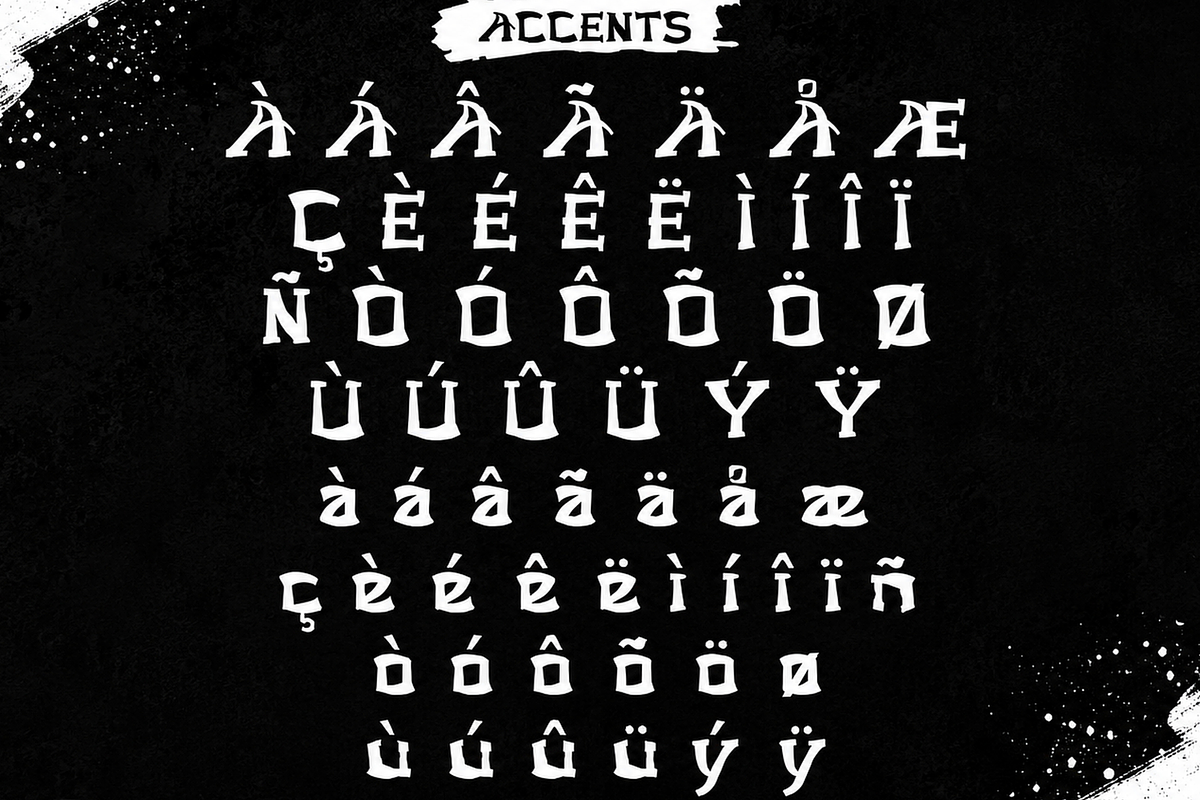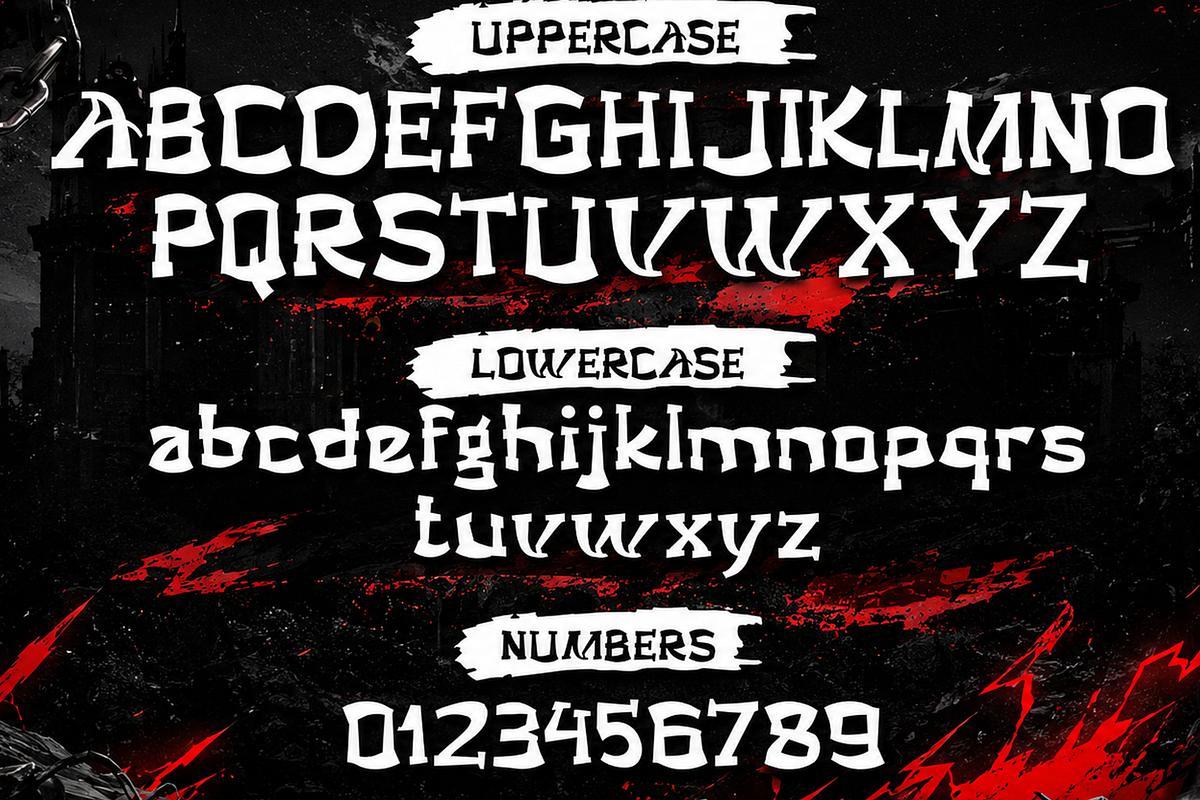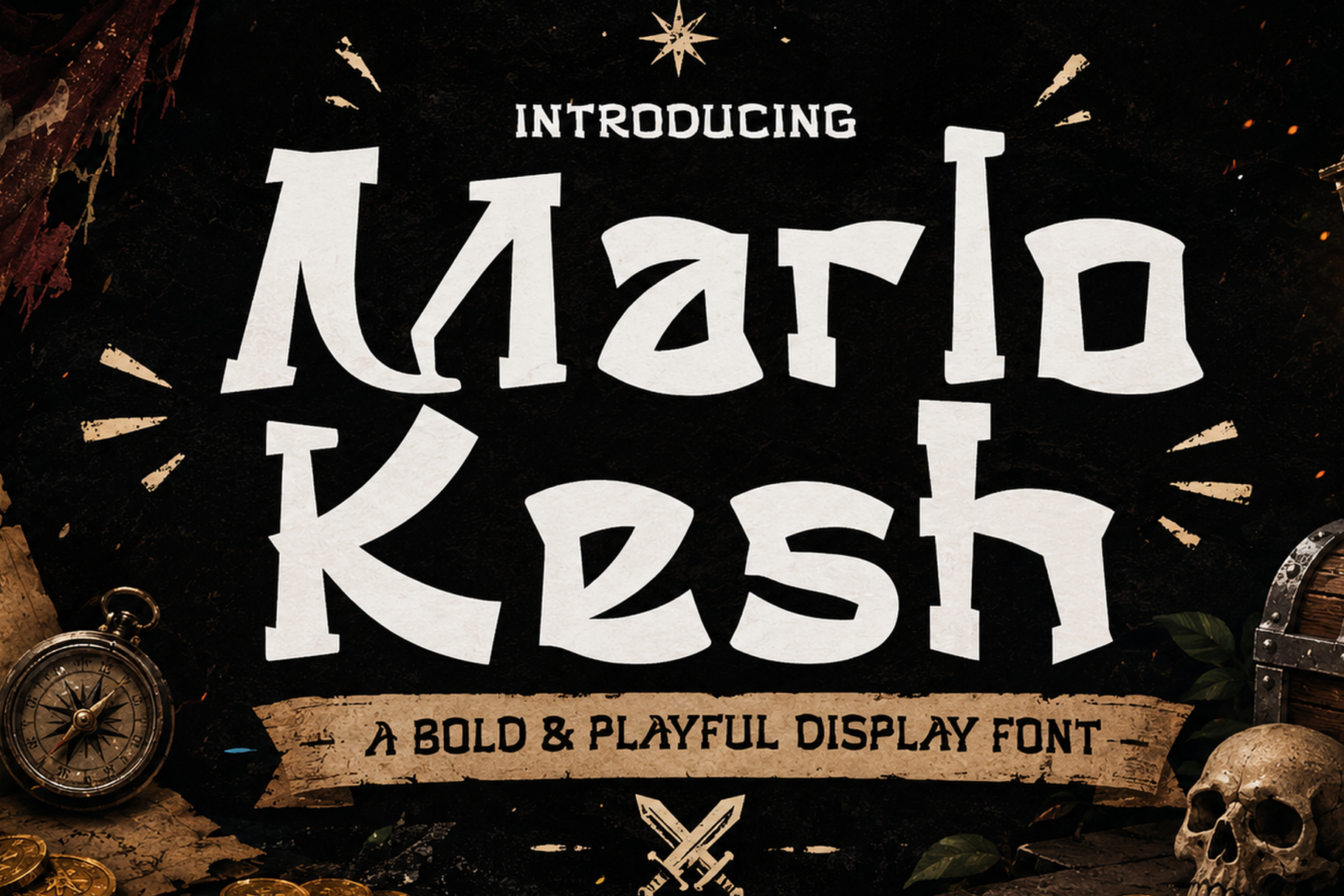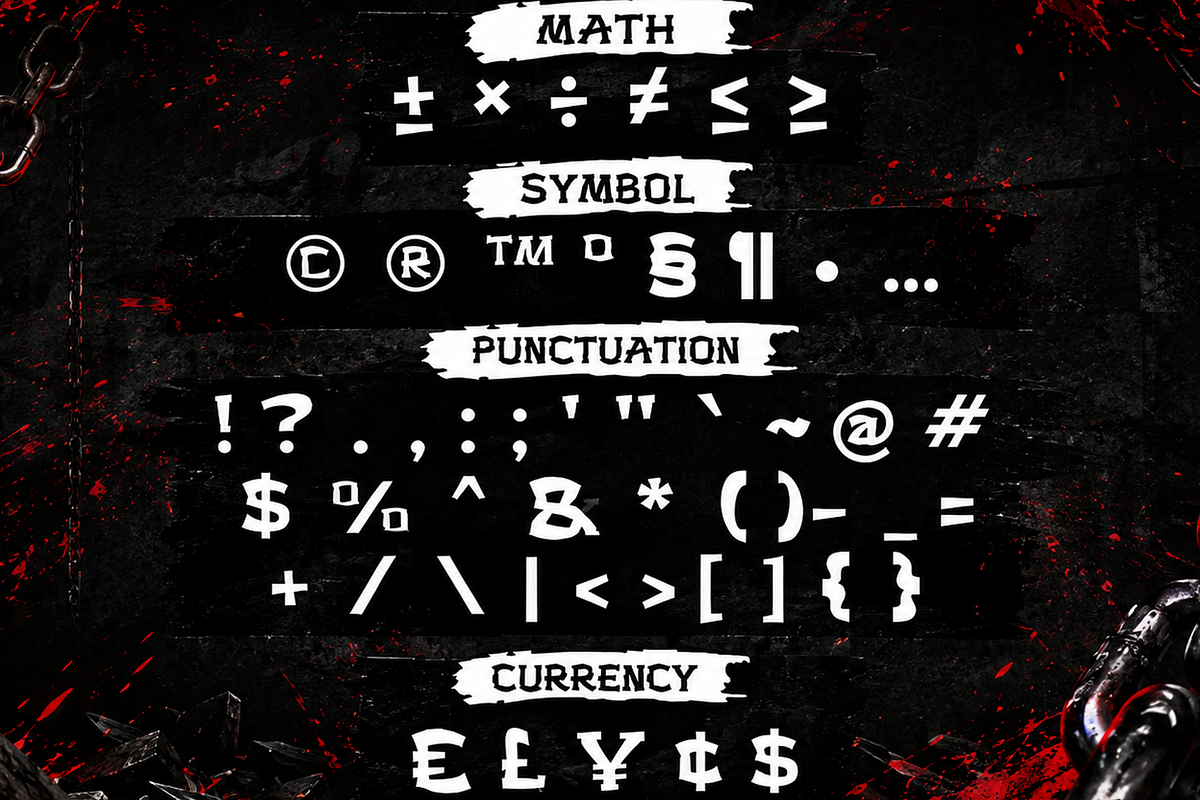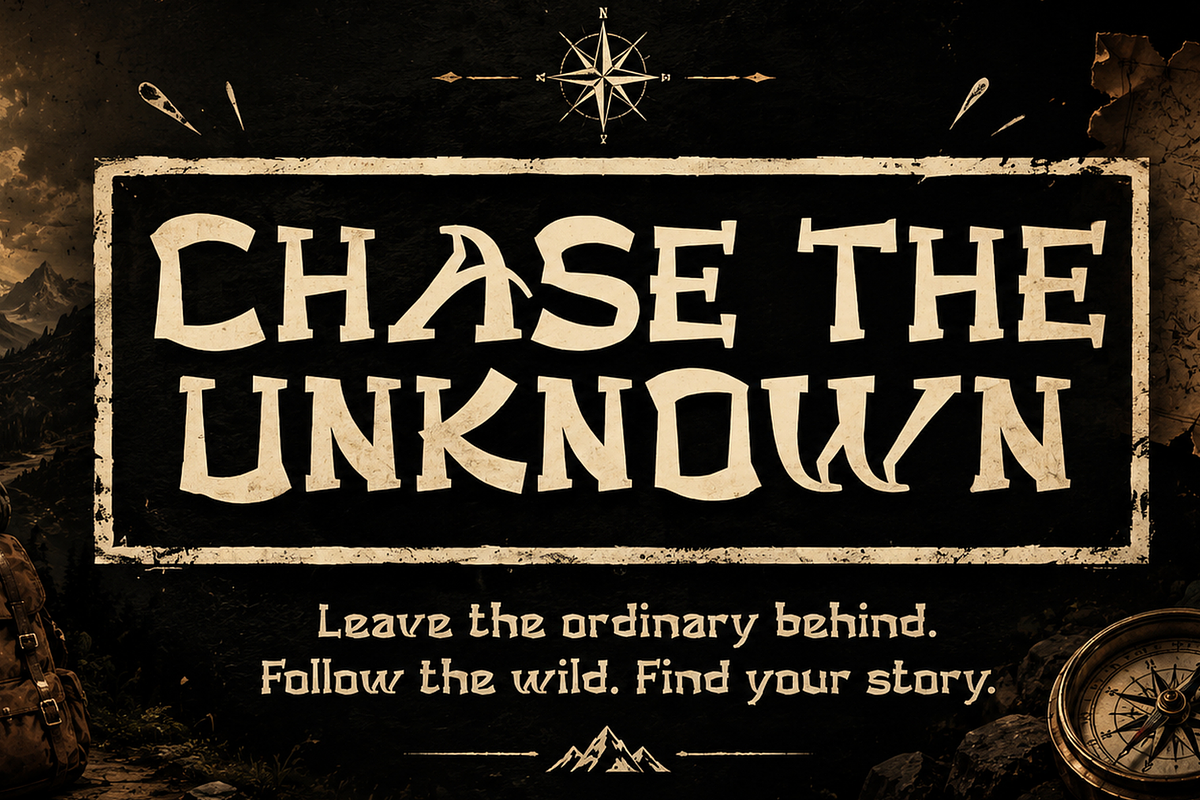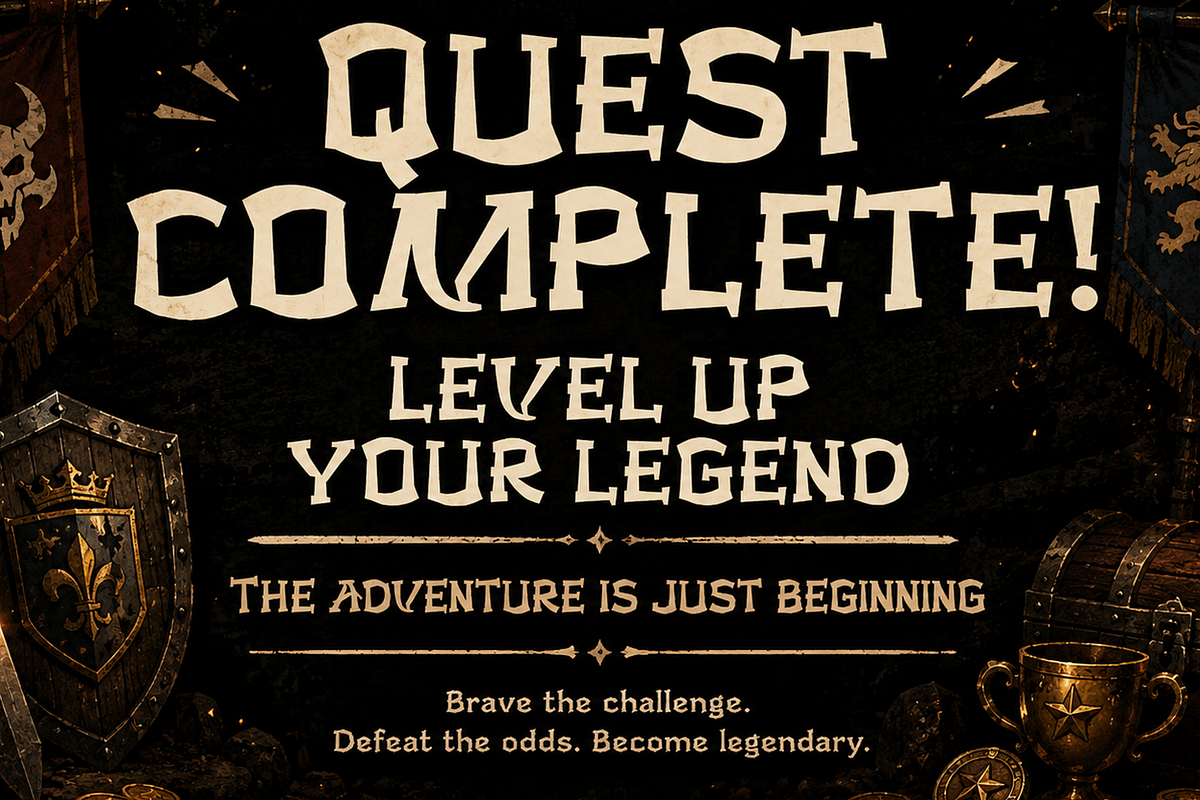
Marlo Kesh Pirate Display Typeface
Marlo Kesh is a bold and playful display font inspired by the adventurous spirit of pirates, treasure hunts, and vintage exploration. Its strong, irregular letterforms bring a rugged yet fun personality to every design, making it perfect for projects that need a distinctive and adventurous look.
Marlo Kesh works beautifully for logos, posters, packaging, T-shirts, children's products, game titles, branding, headlines, and social media graphics. Its unique character helps your typography stand out while maintaining a bold and approachable visual style.